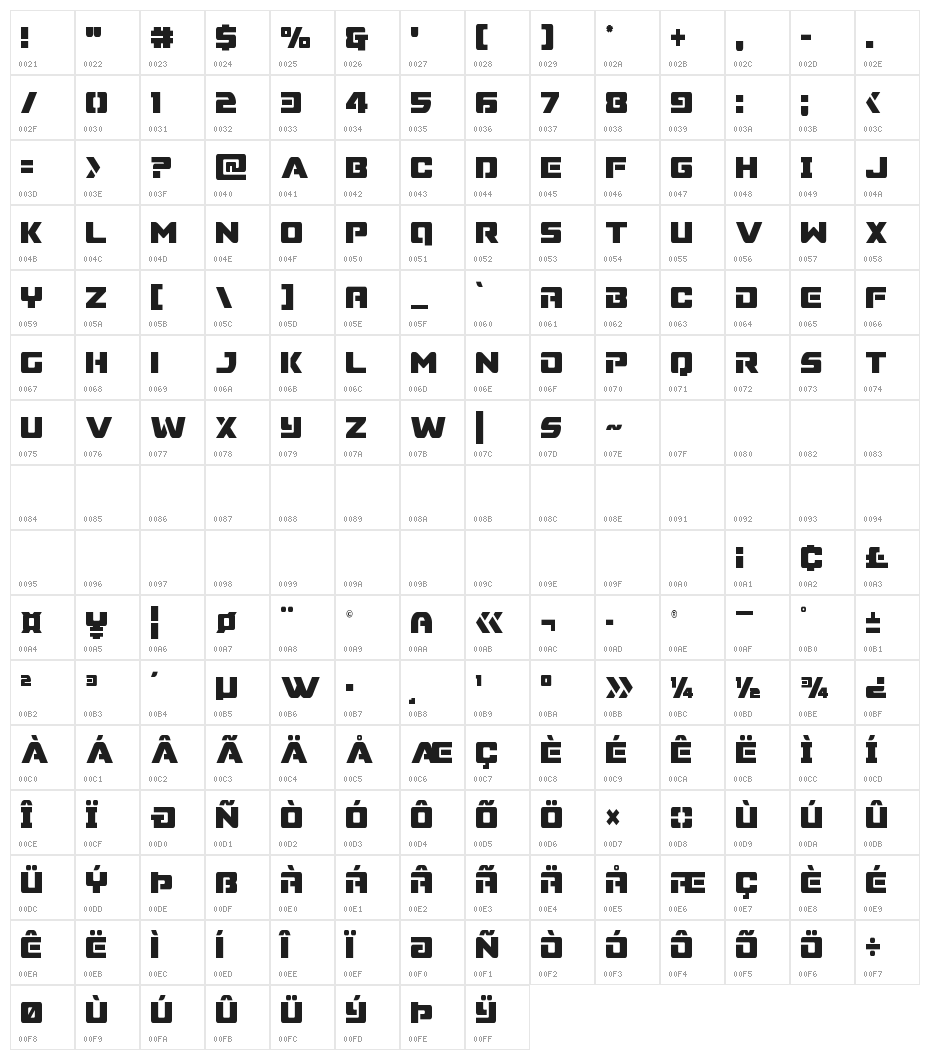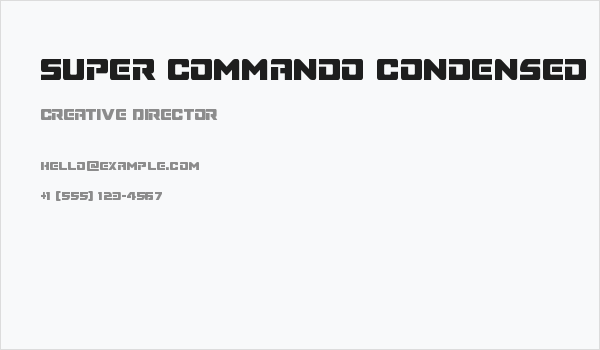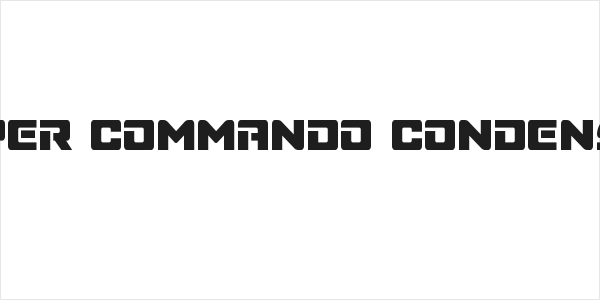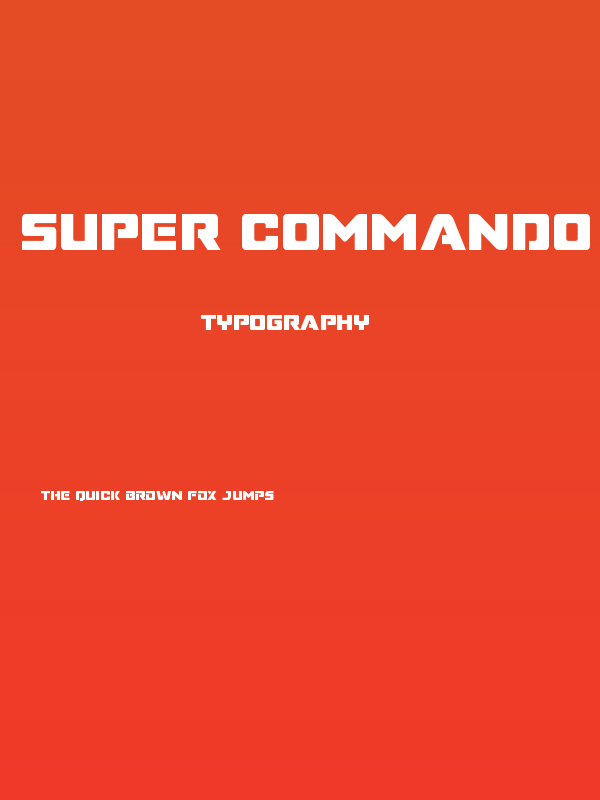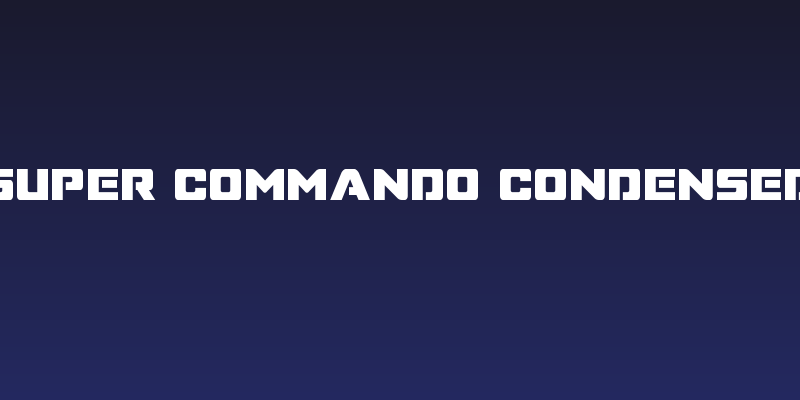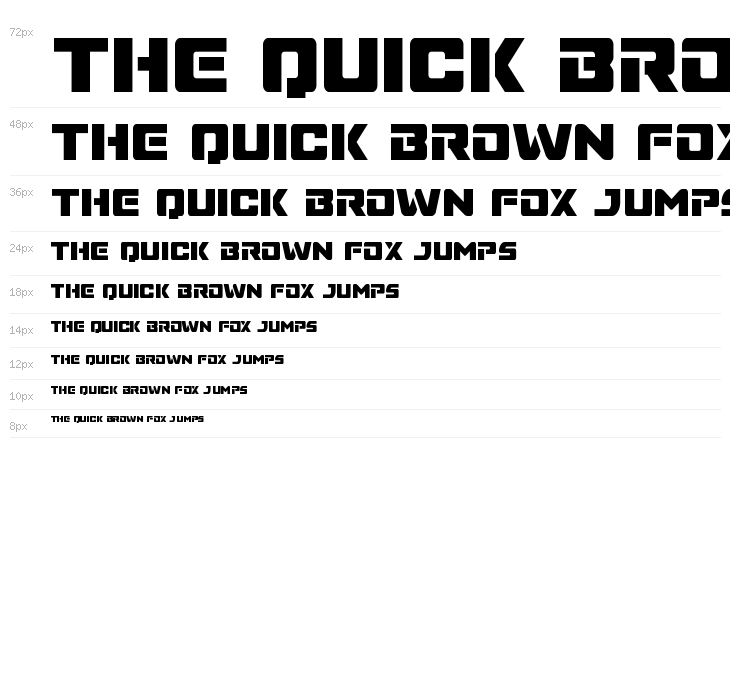
Super Commando Condensed Font
Super Commando Condensed Description
This font features a bold and condensed style with a strong geometric structure. The characters are designed with sharp angles and a uniform thickness, giving it a robust and impactful appearance. The uppercase letters are particularly striking, with a futuristic and industrial feel. The lowercase letters maintain the same boldness, ensuring consistency across the typeface. Numerals and special characters are crafted to match the overall aesthetic, making it suitable for attention-grabbing designs. The condensed width allows for efficient use of space, making it ideal for headlines and titles where impact is essential.